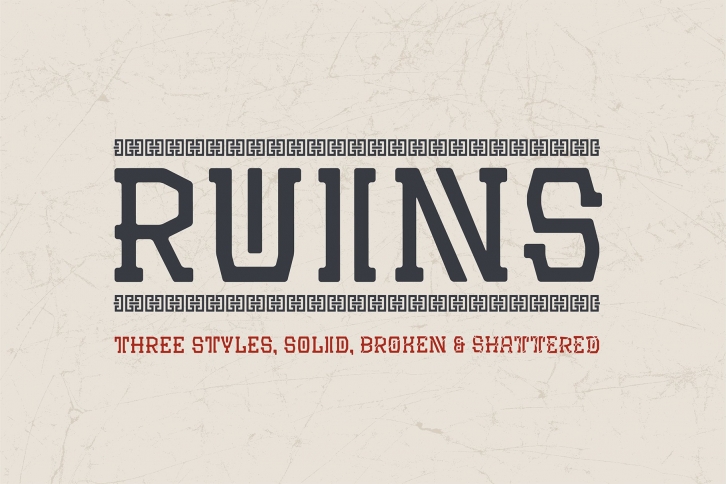
A tribal typeface inspired by the Azticatian pyramids and ancient hieroglyphics. It comes in three styles Solid, Broken and Shattered with a full character set, alternative characters, extra glyphs to create boarders or patterns with and a full set of accent characters.